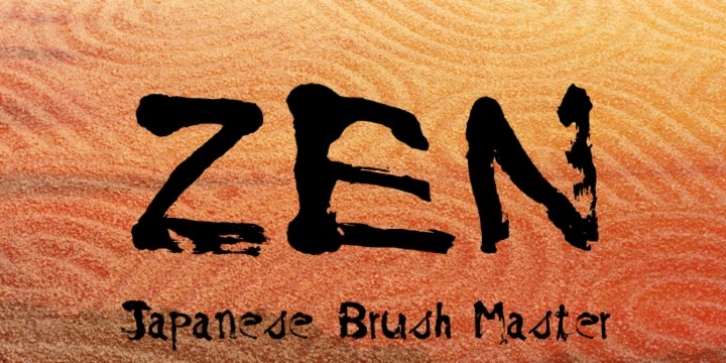
Japanese Brush Master was developed directly from the hand-written brushstrokes of experienced calligrapher, Shigeru Nomura.
Feel the artistic brushstrokes.
Japanese Brush Master is extended, containing West European diacritics & ligatures, making it also suitable for multilingual environments & publications.